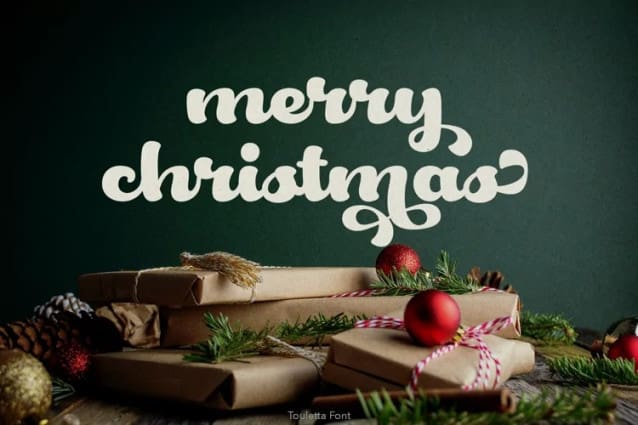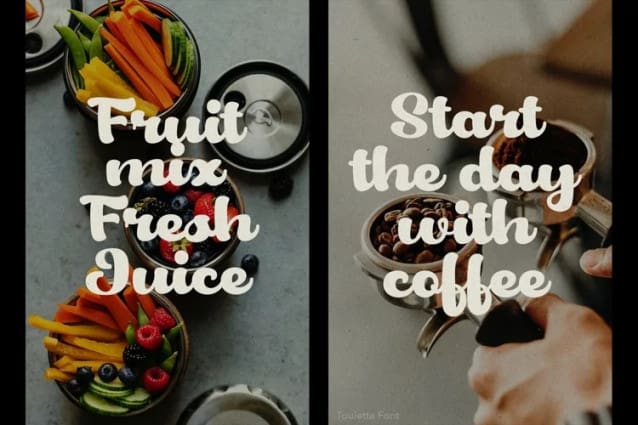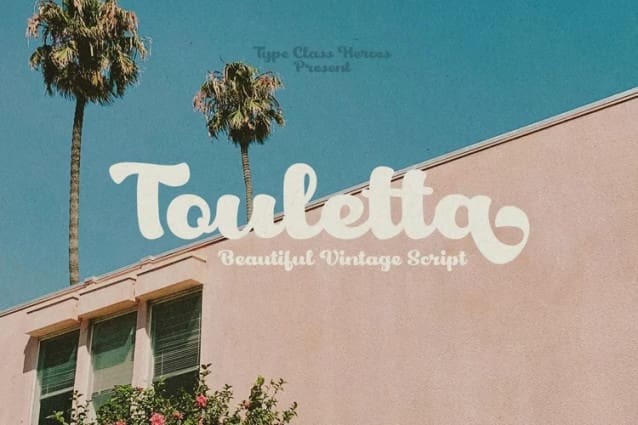
Touletta Script Font
Touletta Script Font is a bold retro script come with 60’s style. Retro and refined you can explore and combine creating rhythm for comfortable reading. Touletta Script Font perfect for any projects, such logotype, stickers, greeting / wedding cards, packaging design, headlines, brand identity, t-shirt, posters, magazines, books, Instagram, websites, and many more.